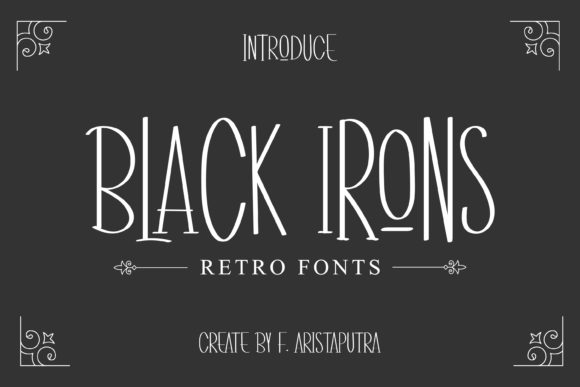
I still remember the frustration of working on a project, hours poured into the design, and then… font paralysis. You know, that moment when you just can’t decide which font will make your design pop? I’ve been there, and I’m sure many of you have too. A client requested a modern, sleek look for their branding, and I was on a mission to find the perfect font. That’s when I stumbled upon **Black Irons Font**.
First Impressions: A Love Affair with Black Irons
Black Irons is a tall and thin sans serif font that has quickly become a staple in my design toolkit. Its elegant lines and modern aesthetic make it perfect for a wide range of projects. Whether you’re working on a logo, a brochure, or a website, Black Irons can easily be matched to an incredibly large set of projects, making them stand out with style.
- ✨ Versatility: Black Irons can be used for both digital and print projects, making it a versatile addition to your font library.
- ✅ Readability: Despite its thin lines, Black Irons remains clear and readable, even at smaller sizes.
- 💡 Instant Style: This font adds an instant touch of sophistication and modernity to any design.
⚠️ While Black Irons is incredibly versatile, there are a few things to keep in mind. Its thin lines can sometimes get lost in low-resolution images or when used as a fill color. Also, spacing can be a bit tricky; make sure to adjust it according to your design to avoid a cramped look.
🤔 Another thing to consider is that, due to its elegant and modern look, Black Irons might not be the best fit for very playful or casual projects. It’s perfect for professional and sleek designs but might not suit a children’s book or a highly whimsical brand.
Exploring Alternatives: Similar Fonts to Black Irons
If you’re looking for more options or want to experiment with different styles, here are a few fonts similar to Black Irons:
- Montserrat: A geometric sans serif with a similar modern feel but slightly more rounded edges.
- Raleway: A elegant sans serif with a range of weights, offering a bit more versatility in terms of tone.
- Playfair Display: For those looking for a bit more luxury and high-end feel, although it’s a bit more ornate.
- Lato: A sans serif with a friendly and approachable vibe, great for designs that need a bit more warmth.
The Story Behind Black Irons: Designer Inspiration
While the exact origins of Black Irons might not be well-documented, its design seems to draw inspiration from modernist and industrial aesthetics. The font’s creator aimed to produce a clean, highly legible typeface that could serve a wide range of design needs. The result is a font that’s both sleek and versatile, perfect for contemporary designs.
Q: Is Black Irons suitable for body text?
A: While Black Irons is elegant and modern, its thin lines might make it less ideal for long body text, especially at smaller sizes. It’s best used for headings or short paragraphs.
Black Irons Font, with its tall and thin sans serif design, offers a modern and elegant solution for a wide array of design projects. Its versatility, readability, and instant style make it a valuable addition to any designer’s toolkit. Whether you’re creating a sleek logo, a professional brochure, or a stylish website, Black Irons can help your design stand out.